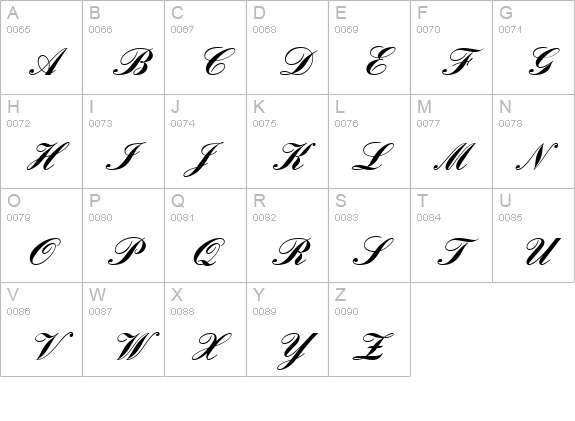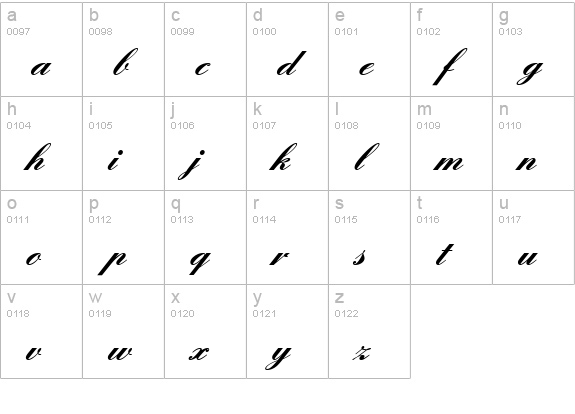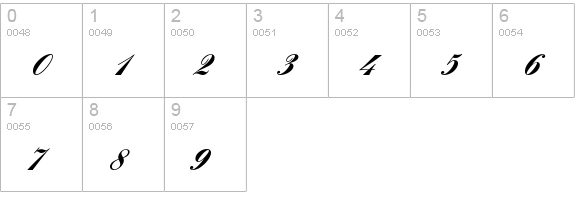
EnglischeSchT Bold Font Details
EnglischeSchT Bold is a strong, high-contrast variant in the EnglischeSchT typeface family \xE2\x80\x94 well suited to headlines, attention-grabbing titles, and strong calls-to-action.
EnglischeSchT Bold font is a striking and versatile typeface that exudes elegance and sophistication. Its bold and commanding presence makes it perfect for headlines, titles, and branding materials that demand attention. The font features strong, clean lines and a timeless aesthetic that adds a touch of refinement to any project. Best of all, EnglischeSchT Bold font is available for free download at FontsMarket.com. Whether you're a designer looking to elevate your work with a premium font or a business owner seeking a distinctive look for your brand, this font is a fantastic choice. Don't miss out on the opportunity to enhance your designs with this stunning typeface, completely free of charge. Download EnglischeSchT Bold font today and take your projects to the next level!